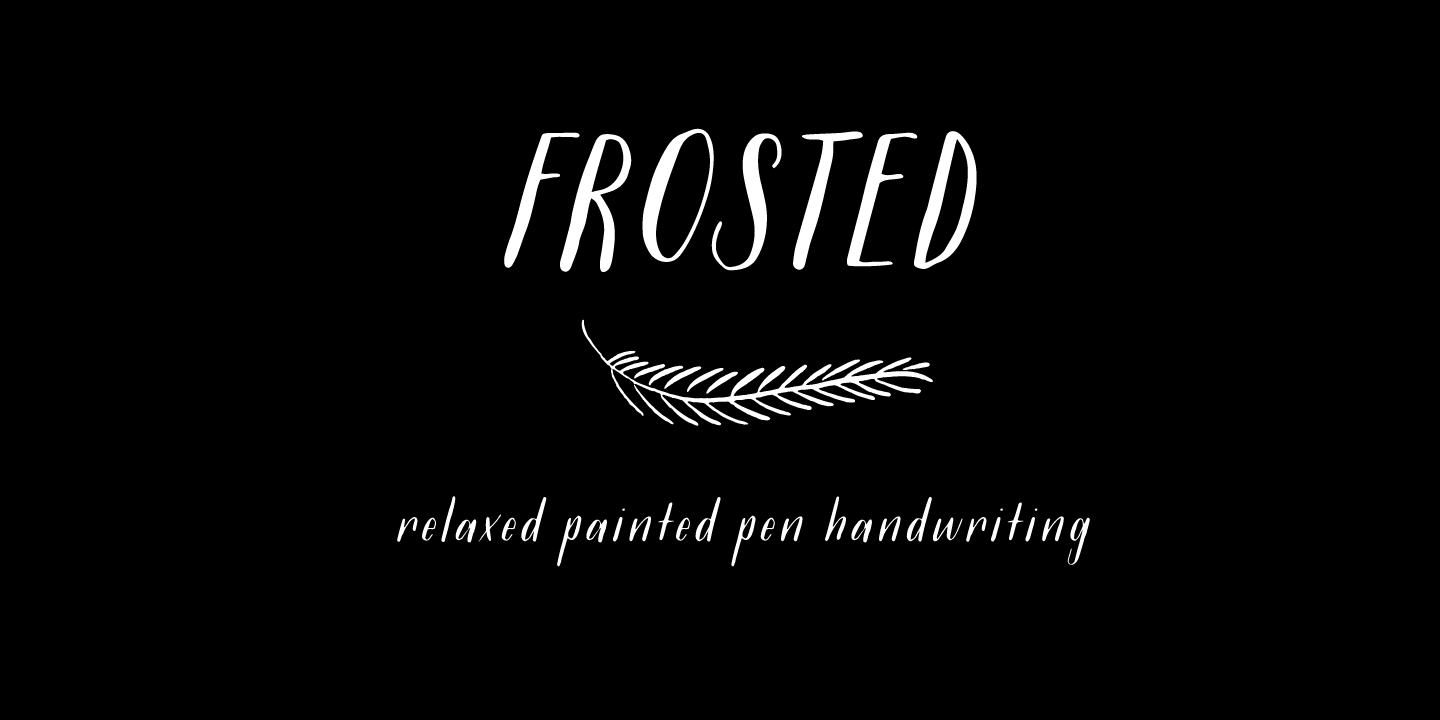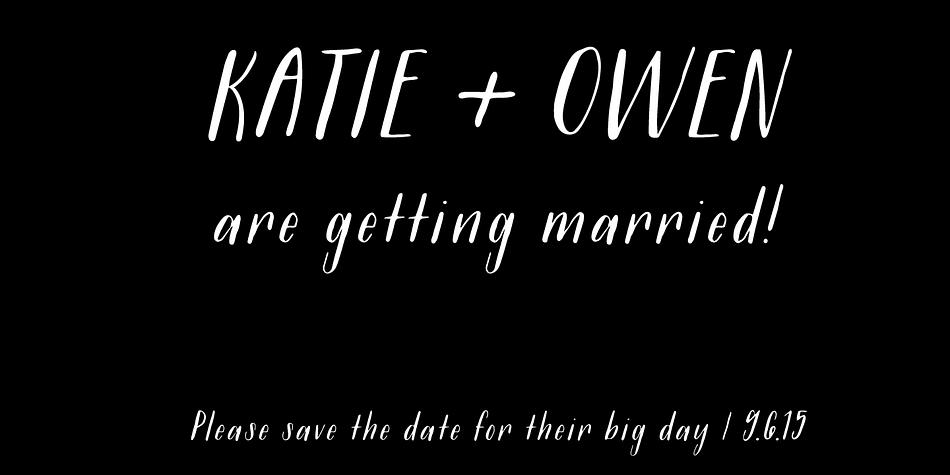
Frosted is a dingbat and hand drawn font family. This typeface has two styles and was published by Great Lakes Lettering.
Frosted is a font based on a naive, illustrated handwriting that can be used on a daily basis.
It is a delicate, handwritten font with a somewhat masculine feel which mimics the natural stroke of pointed pen calligraphy. Paired with structured flourishes and wreaths, Frosted embodies a folksy feel that brings true character to any design.